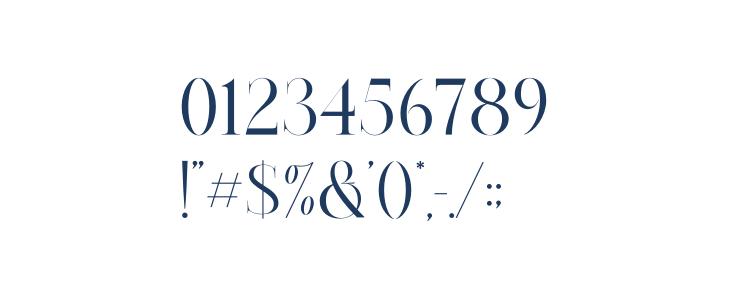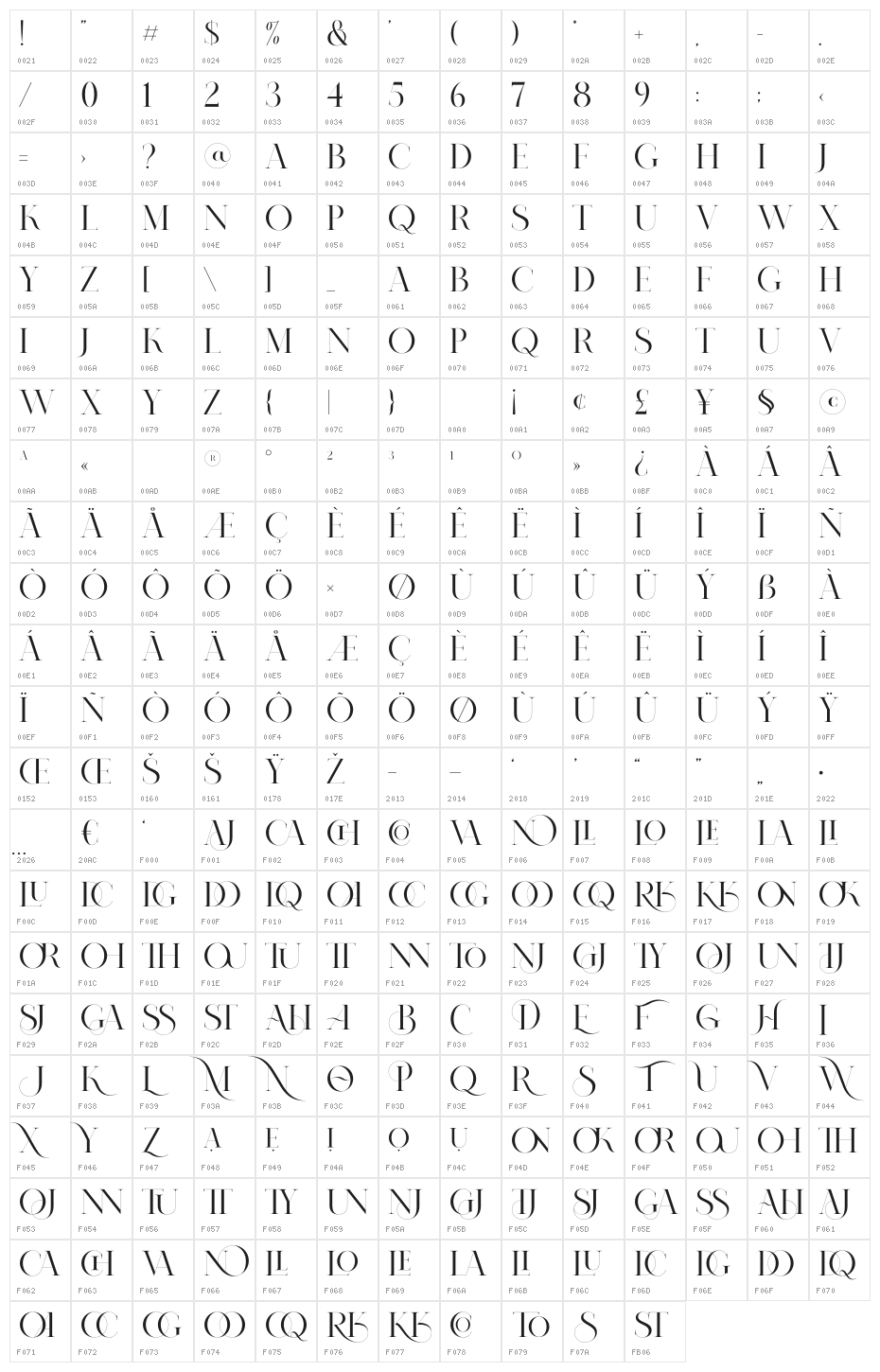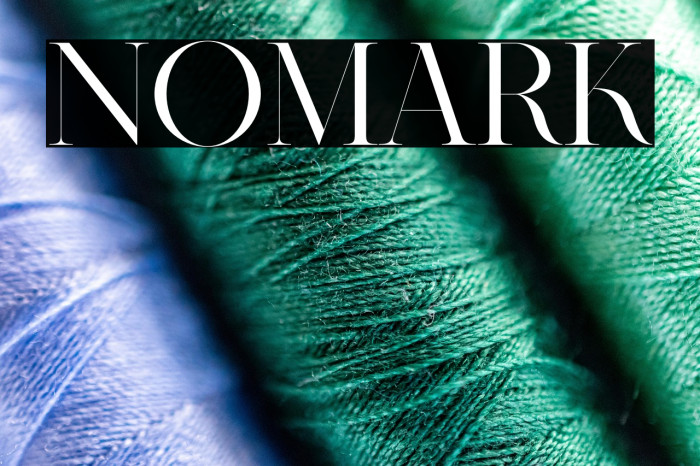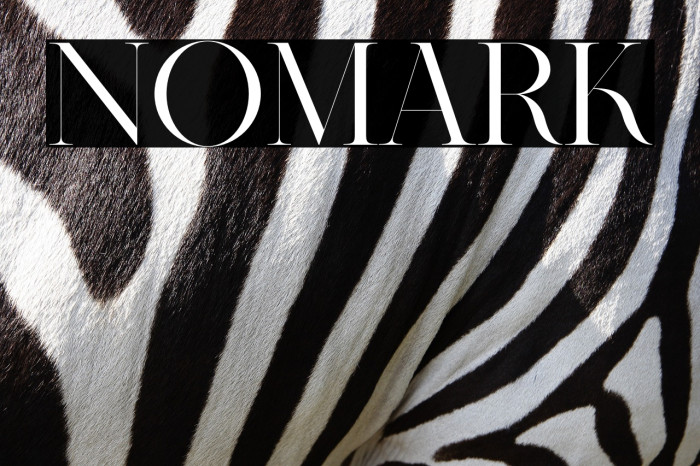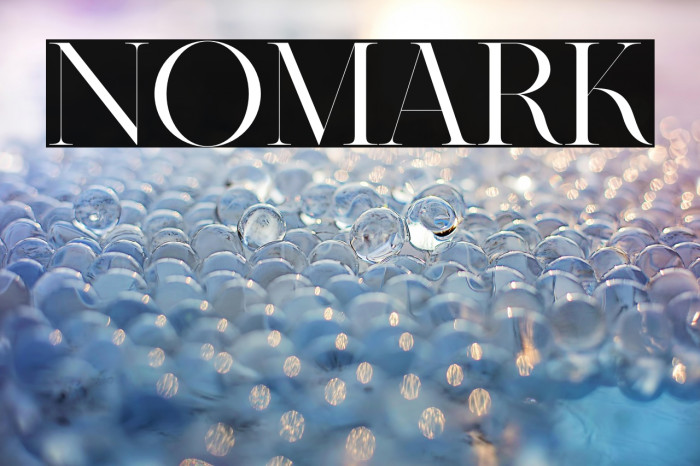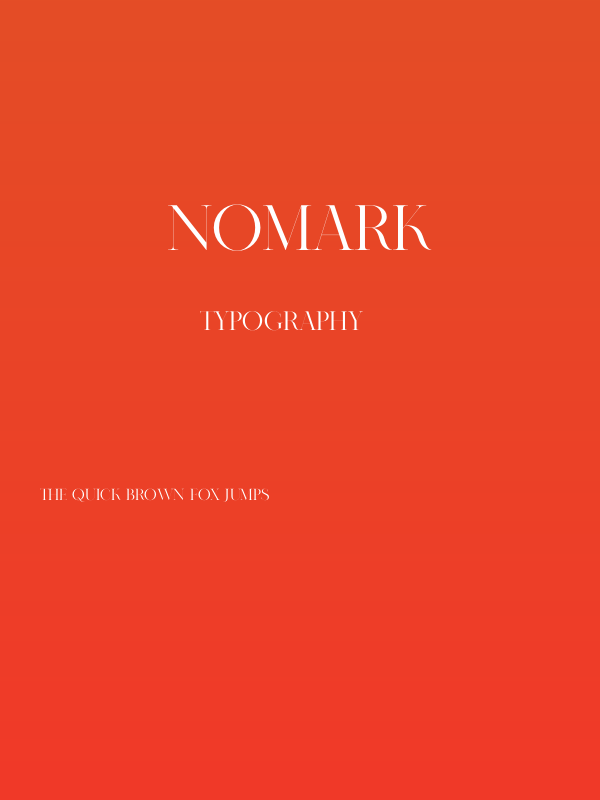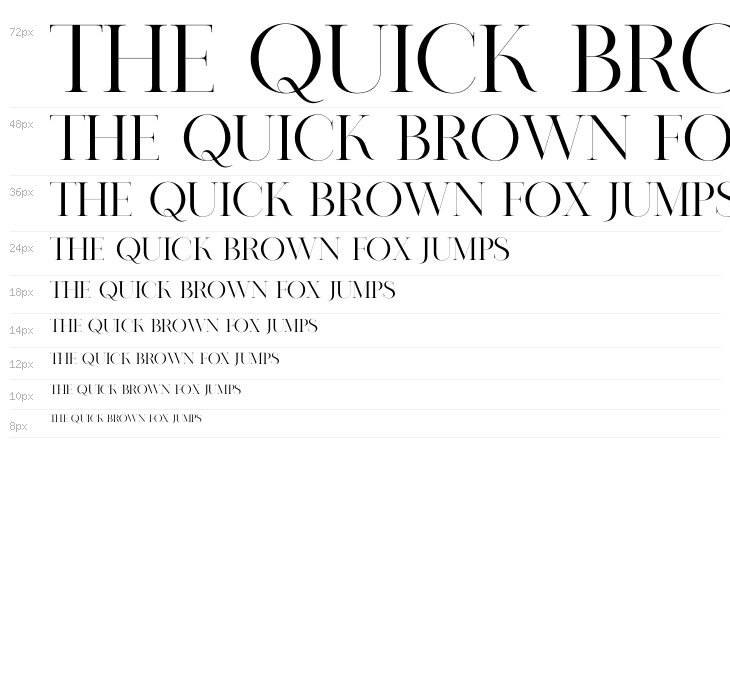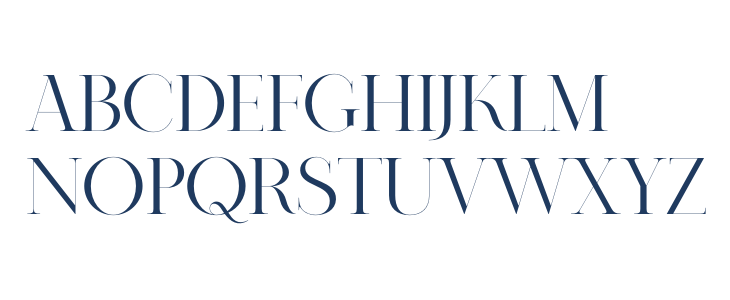
Nomark Font
Nomark Description
This font exhibits a refined and elegant serif style, characterized by its high contrast between thick and thin strokes. The letters have a sophisticated and classic appearance, with elongated serifs that add a touch of grace and formality. The uppercase letters are particularly striking, with a tall and narrow structure that enhances their stately presence. The numerals and special characters maintain the same level of elegance, making the font versatile for various applications. Its overall design suggests a blend of traditional and modern aesthetics, suitable for conveying a sense of luxury and professionalism.
| Proposed Projects | Ideal for luxury branding, editorial design, wedding invitations, and high-end product packaging. |